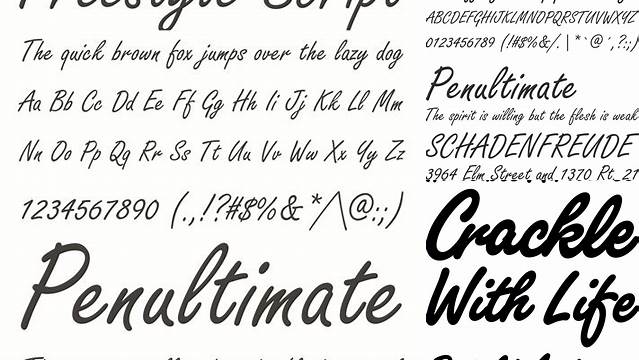
Download Freestyle Script Font: The Ultimate Guide
Introduction to Freestyle Script Font
Hey guys! Let's dive into the world of fonts, specifically the super stylish Freestyle Script font. If you're looking to add a touch of elegance and flair to your designs, then this font is definitely one to consider. But what exactly is Freestyle Script, and why is it so popular?
Freestyle Script is a casual, yet elegant, typeface designed by Martin Wait in 1981. Its flowing lines and handwritten style give it a personal and approachable feel, making it perfect for a wide range of applications. Think invitations, logos, branding materials, and even social media graphics. The beauty of Freestyle Script lies in its versatility. It can be both playful and sophisticated, depending on how you use it. Whether you're designing a wedding invitation or a cool logo for your startup, this font can help you achieve the desired aesthetic. So, if you’re ready to explore how to download freestyle script font and use it effectively, keep reading! We'll cover everything from where to find it, how to install it, and some creative ways to use it in your projects. Let’s get started and unlock the potential of this fantastic font!
1. What is Freestyle Script Font?
So, let's break it down – what exactly is the Freestyle Script font? Understanding its origins and characteristics can help you appreciate its unique charm and how it can enhance your projects. Freestyle Script is a typeface that falls into the script font category, which means it’s designed to mimic handwritten styles. Created by Martin Wait in 1981, it has since become a staple in the design world due to its elegant and flowing appearance. Imagine the graceful loops and connecting strokes of cursive writing; that's the essence of Freestyle Script. The font's design is characterized by its slanted, flowing letters and dynamic strokes, which give it a lively and informal feel. It’s not stiff or formal like some serif fonts, but rather it brings a touch of personal flair to any text.
The unique thing about Freestyle Script is its ability to add a personal touch to your designs. It feels handwritten, as if someone carefully penned each letter, which makes it ideal for projects where you want to convey warmth and authenticity. Think about using it for invitations, greeting cards, or even branding materials where you want to create a friendly and approachable vibe. The font's playful yet sophisticated nature means it can work well in both casual and more formal settings. Whether you’re designing a fun social media graphic or a professional logo, Freestyle Script can help you achieve the desired aesthetic. So, in a nutshell, Freestyle Script is a beautiful, flowing script font that adds a touch of handwritten elegance to any design. It's versatile, charming, and a fantastic tool to have in your font arsenal. Now, let’s get into the specifics of freestyle script font download and how to use it!
2. Key Characteristics of Freestyle Script Font
Alright, let's dive deeper into what makes Freestyle Script so special. Understanding its key characteristics will help you see why it's such a popular choice for designers and creatives. First off, the most noticeable feature of Freestyle Script is its flowing, cursive-like style. The letters connect smoothly, giving the text a sense of rhythm and movement. This fluidity is what makes it feel so handwritten and personal. It’s not just a static font; it seems to dance across the page. Another defining characteristic is the font's slant. Freestyle Script leans slightly to the right, which adds to its dynamic and energetic feel. This slant contributes to the font's overall elegance and makes it stand out from more upright script fonts. It’s this slight angle that gives it a touch of flair and sophistication. The loops and swashes in Freestyle Script are also a crucial element of its charm. Many letters feature extended strokes that loop and curl gracefully, adding a touch of whimsy and elegance. These decorative elements make the font visually appealing and give it a unique personality. Think about the uppercase letters, especially the 'F' and 'S,' which often have elaborate loops that enhance their aesthetic appeal.
Furthermore, Freestyle Script has a distinctive weight. It’s neither too thin nor too bold, striking a perfect balance that makes it legible while maintaining its elegant appearance. This medium weight allows it to be used in a variety of sizes and contexts without losing its readability. Whether you’re using it for headlines or body text, Freestyle Script maintains its clarity and charm. The font's informal and friendly nature is another key characteristic. It doesn't feel stuffy or overly formal, making it perfect for projects that need a personal touch. This approachability makes it a great choice for invitations, branding, and social media graphics where you want to connect with your audience on a more personal level. In conclusion, Freestyle Script’s flowing lines, elegant slant, decorative loops, balanced weight, and friendly nature all contribute to its unique appeal. Understanding these characteristics will help you appreciate the font's versatility and use it effectively in your designs. Now, let’s move on to where you can actually download freestyle script font and get it ready for your projects!
3. Common Uses of Freestyle Script Font